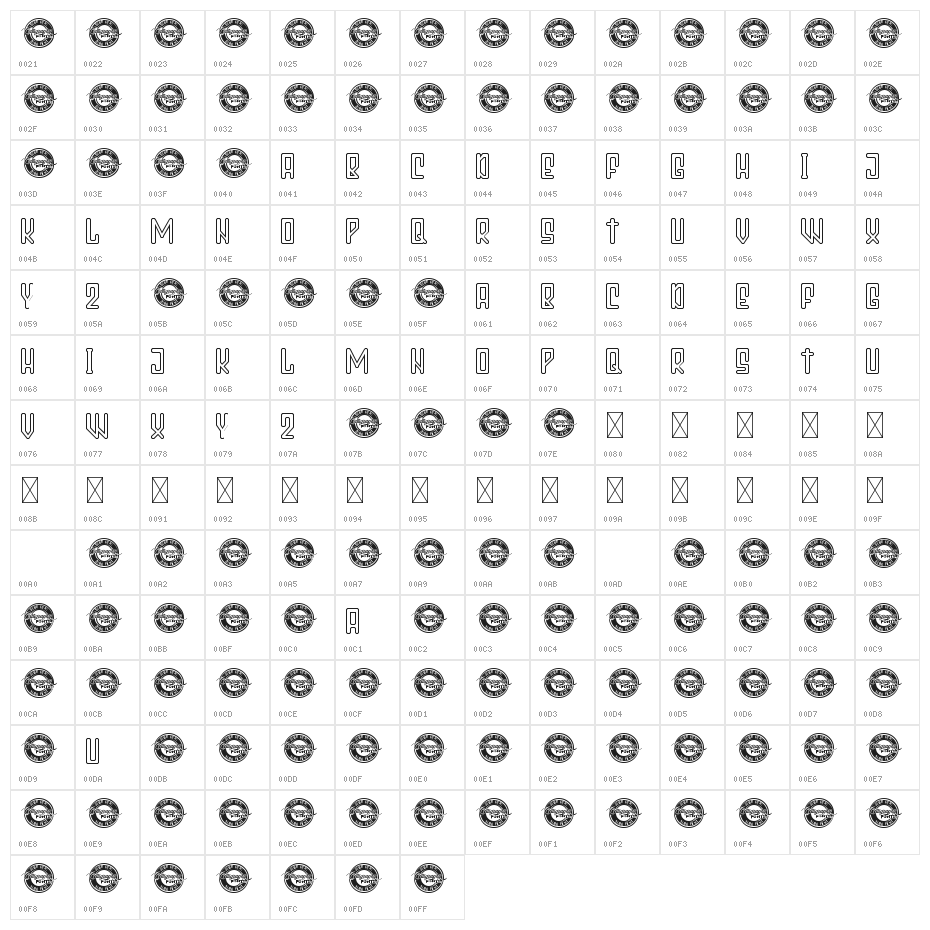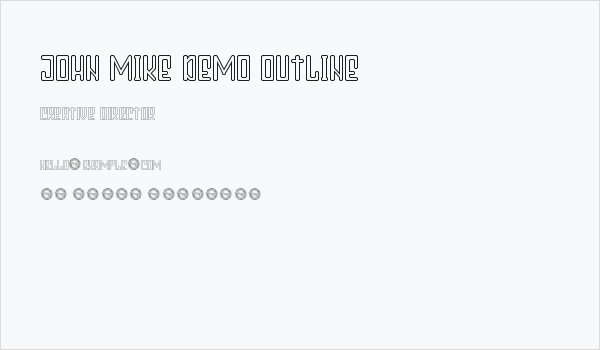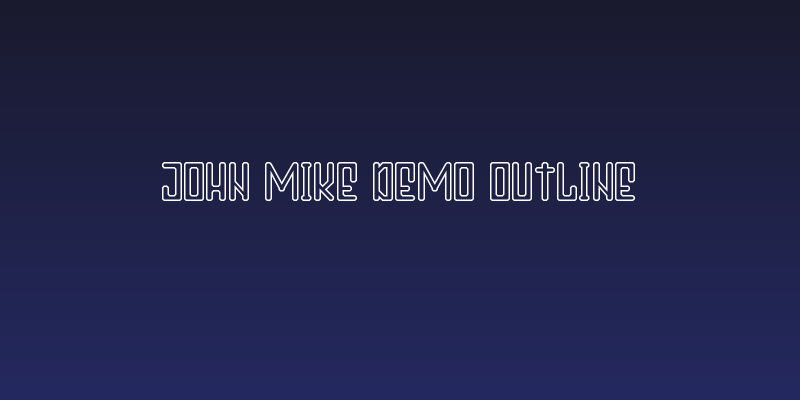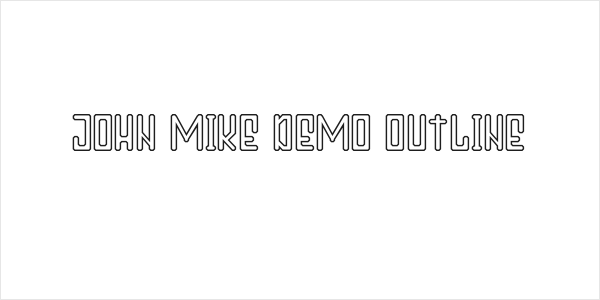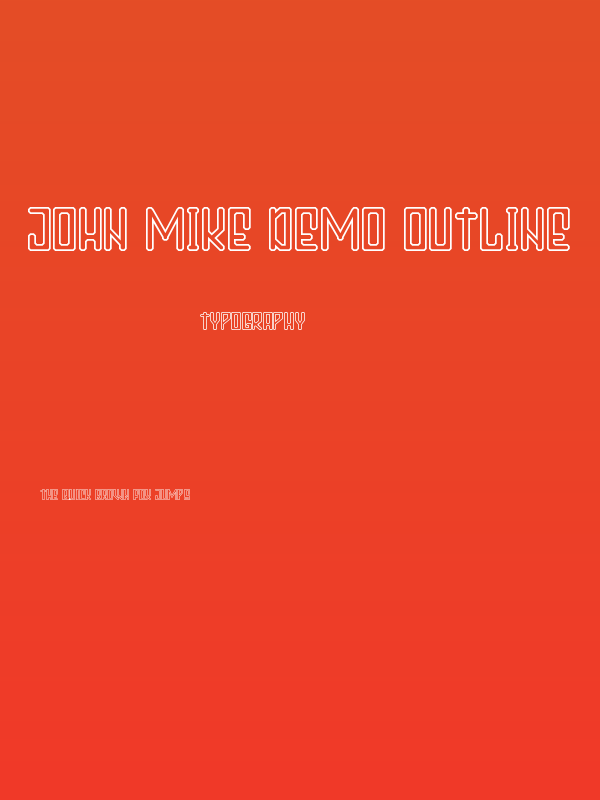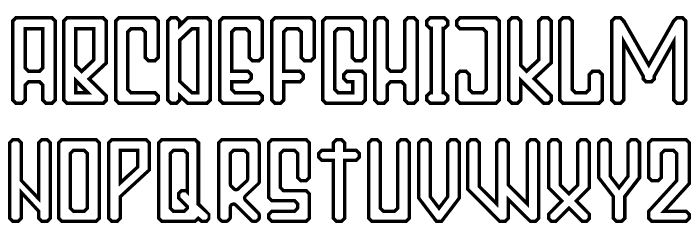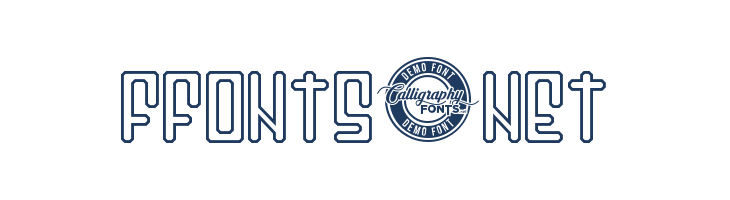
John Mike Demo Outline Font
This font features a bold, geometric outline style that gives it a modern and industrial feel. The characters are constructed with clean, straight lines and sharp angles, creating a sense of precision and strength. The uppercase letters are uniform in height, while the lowercase letters maintain a consistent style, ensuring readability. The numbers and special characters are designed to match the overall aesthetic, making the font versatile for various design applications. Its outlined nature adds a unique dimension, making it suitable for eye-catching headlines and logos.
| Proposed Projects | Ideal for branding, logos, posters, and headlines where a modern and bold statement is needed. |